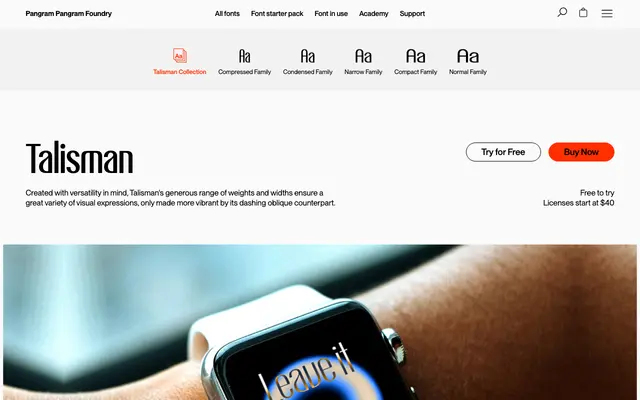
PP Talisman
PP Talisman specimen from Pangram Foundry
A 90-style humanist display sans by Valerio Monopoli, spanning five widths and nine weights with matching obliques.
A humanist display sans built for breadth, with five widths from Compressed to Normal and nine weights from Thin to Black, plus matching obliques, totalling 90 styles each carrying 687 glyphs. The casual, stripped-back skeleton keeps it minimal at body size, while the wide range across widths lets brands run from compact captions to full-bleed posters within one system. Visuals for the release are by Sergio Lairisa.